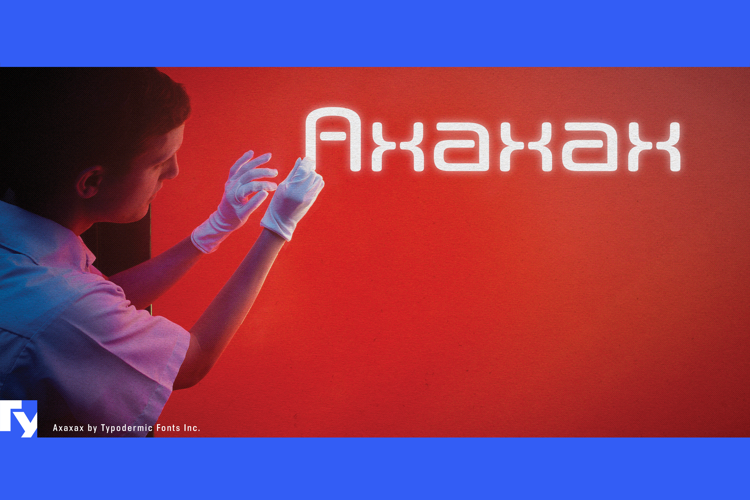
Axaxax Font
Axaxax gives advanced-technology branding a geometric voice built around light, optical signals, sensing, and connected systems. Its distinctive construction suits photonics, architectural lighting, audiovisual hardware, networking, data centers, and other products that need to look technical without drifting into science-fiction cliché.